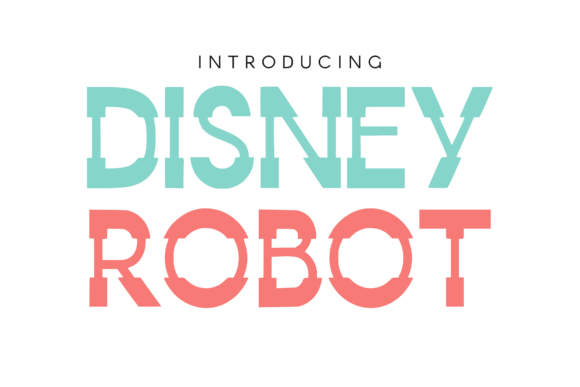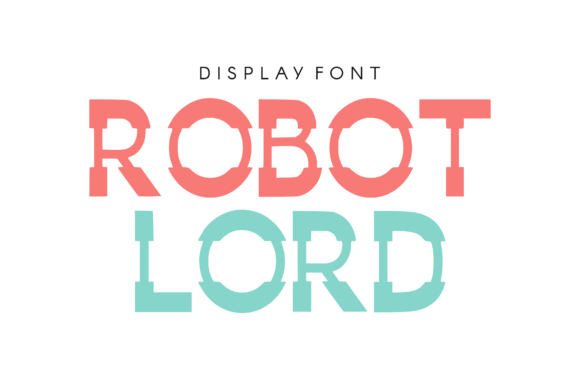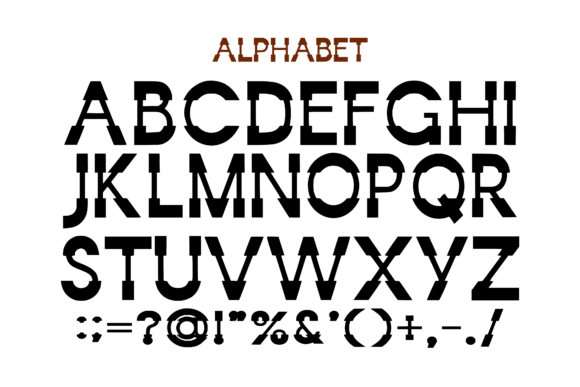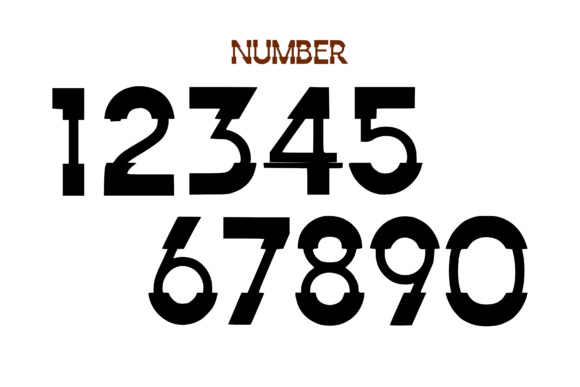
Disney Robot Font
About the Disney Robot Font
Introducing the Disney Robot Font, a beautifully crafted typeface designed to elevate your creative projects. Immerse yourself in the vibrant and futuristic world of the Disney Robot Font, a dynamic and playful typeface steeped in cinematic charm. Bringing an adventurous twist to cartoon movie titles, this font also injects a playful energy into your t-shirt screen-print projects and graphic templates. An innovative approach to typography that captures the essence of imagination, discovery, and playful sophistication, you can’t resist this appealing font!
This font shines brightest in headline applications, short playful taglines, and branding for children’s products or entertainment-related projects. Its playful energy also makes it well-suited for posters and packaging where a bold, attention-grabbing aesthetic is desired. However, its unique character and relatively large x-height make it less suitable for body text or UI elements requiring high readability.
For optimal visual harmony, pair Disney Robot Font with a clean sans-serif like Open Sans for body copy, or a more geometric sans-serif like Futura for a modern contrast. A playful script font could also complement its energy, depending on the specific design context, but should be used sparingly.
The overall personality is undeniably bold, playful, and slightly whimsical. It’s ideal for brands targeting a younger demographic or conveying a sense of fun and adventure. Avoid using it in projects requiring sophistication or seriousness.
Disney Robot Font Usage Examples
Disney Robot Font Example